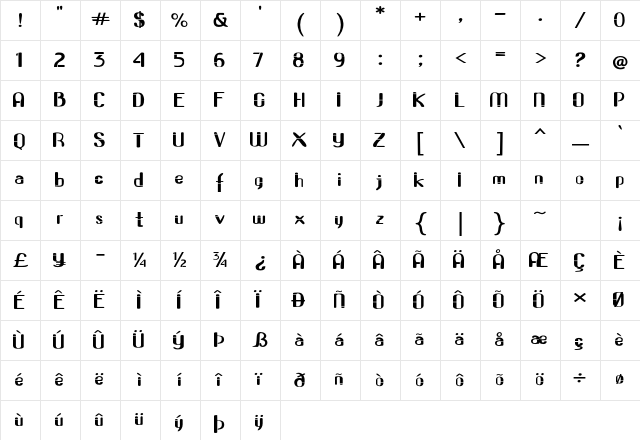
Globule Expanded Bold
Style: Expanded Bold
Globule Family
Globule Expanded Bold
Design Context for Globule
Globule is a composed and adaptable typeface that performs quietly and consistently across a wide range of design contexts. Its bold stroke weight gives it real presence on the page.